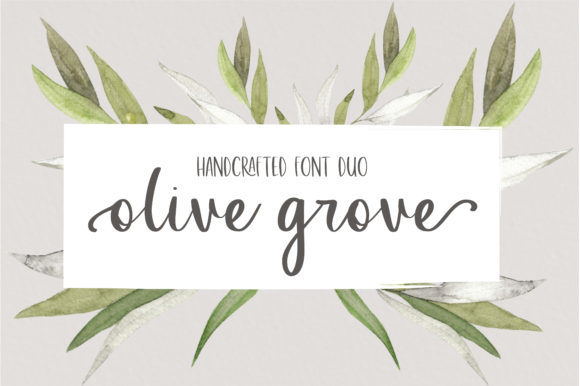
Welcome to the realm of Olive Grove Font, a captivating fusion of elegance and modernity, tailored exquisitely for your creative endeavors. As a script font family, Olive Grove dances gracefully across your screens, leaving a trail of visual allure that's bound to captivate hearts.
Crafted with precision by the talented hands of Sunday Nomad, Olive Grove is a delicate harmony of thin lines and graceful curves. Its sans serif and script duo dance in perfect unison, creating a captivating visual symphony that elevates your designs to new heights of sophistication.
Picture this: your logo, adorned with the timeless beauty of Olive Grove, exuding an air of understated confidence that speaks volumes about your brand's identity. Or envision your wedding invitations, transformed into ethereal works of art, carrying the promise of love and happiness in every stroke.
Olive Grove is a font that transcends the ordinary, beckoning you to explore a myriad of creative possibilities. Its versatility knows no bounds, whether you're creating logos, branding materials, invitations, stationery, wedding designs, or captivating social media posts.
With Olive Grove as your creative companion, you'll unleash a torrent of creativity, transforming your designs into masterpieces that resonate with your audience. Its elegant lines will weave a tapestry of sophistication, while its modern charm will add a touch of contemporary flair, ensuring your designs stand out from the crowd.
So why settle for ordinary when you can embrace the extraordinary? Embark on a creative journey with Olive Grove Font, and let your designs blossom with elegance, grace, and a touch of modern allure. Step into a world where creativity reigns supreme, and your designs become a reflection of your unique artistic vision. Discover the endless possibilities that await you with Olive Grove Font – your gateway to a world of visual enchantment.